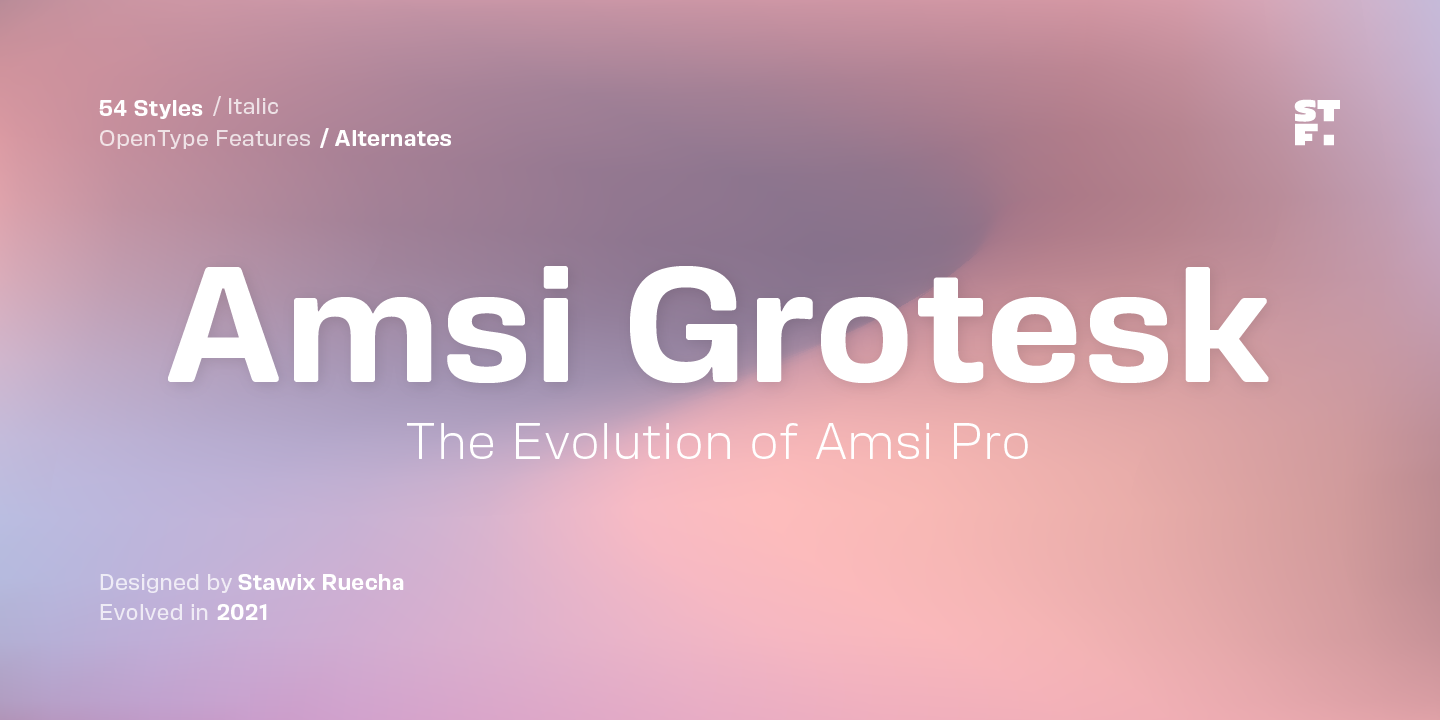
Amsi Grotesk Font Free Download is a dynamic and contemporary sans-serif typeface that pays homage to early 20th-century grotesque fonts while delivering a fresh, modern twist. With its clean lines, sharp edges, and wide range of weights, Amsi Grotesk is ideal for both digital and print projects that demand clarity and style.
This font strikes the perfect balance between form and function. Whether you're designing corporate materials, websites, mobile apps, or bold advertising campaigns, Amsi Grotesk brings a professional and polished look to any layout. Its highly legible letterforms make it perfect for both headlines and body text, ensuring visual consistency throughout your design.
Amsi Grotesk Font Free Download offers designers a versatile toolkit with its wide family of weights—from hairline to ultra-bold—giving you total creative control. It works flawlessly across major platforms and design software, including Adobe Creative Suite and Figma.